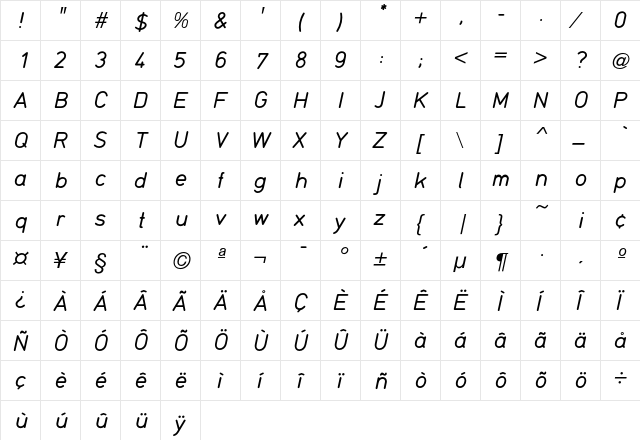
Din16 Italic
Design Context for Din16 Typeface
Din16 offers clean, dependable letterforms without strong stylistic allegiance, making it a practical choice for designers who need flexibility. The dynamic lean of this cut emphasises speed and emphasis in any layout.
Pro Tip: Try Din16 for annotation and caption copy alongside an upright companion — the contrast in angle creates a dynamic but ordered typographic system.